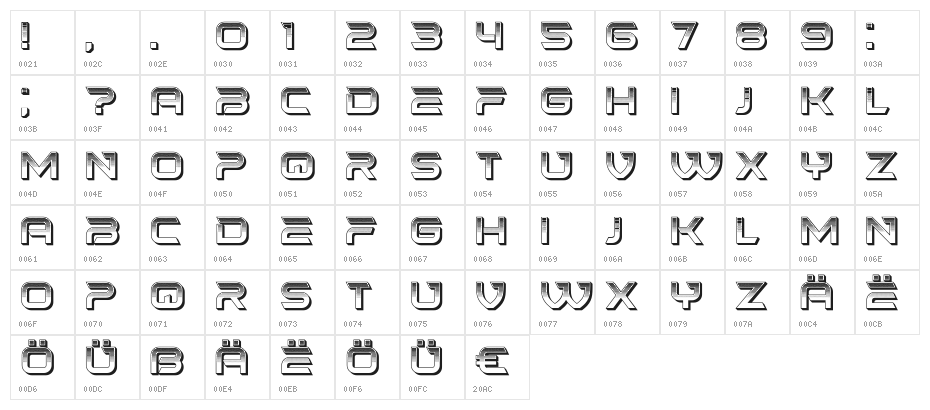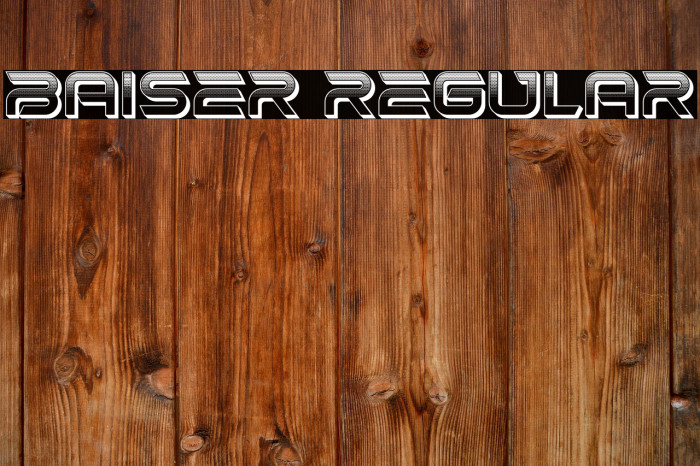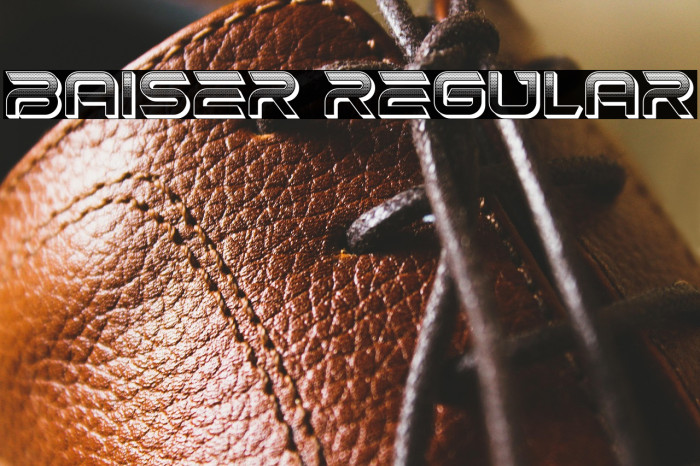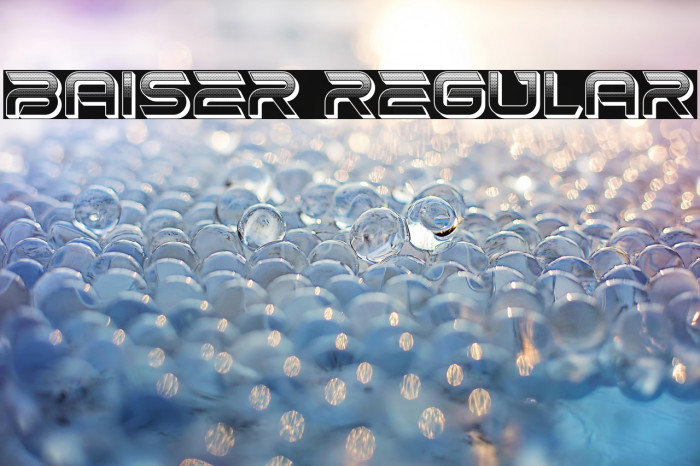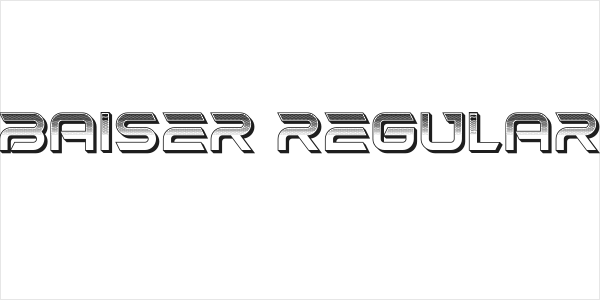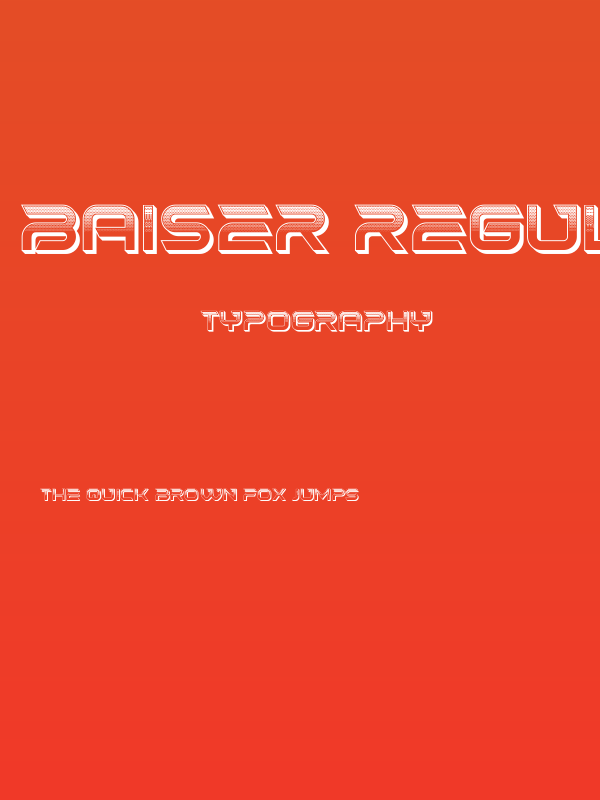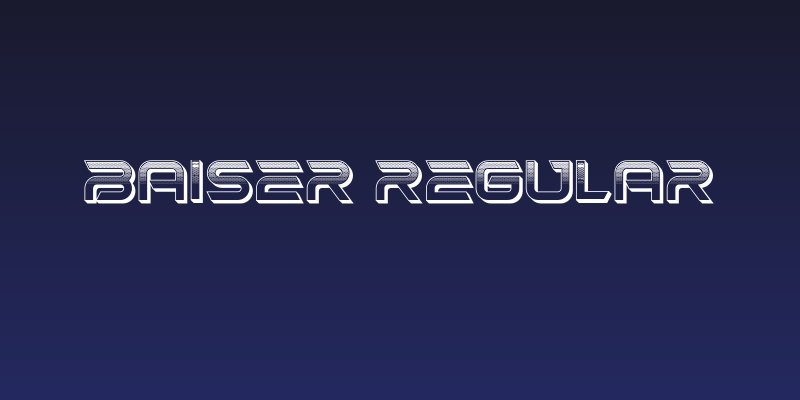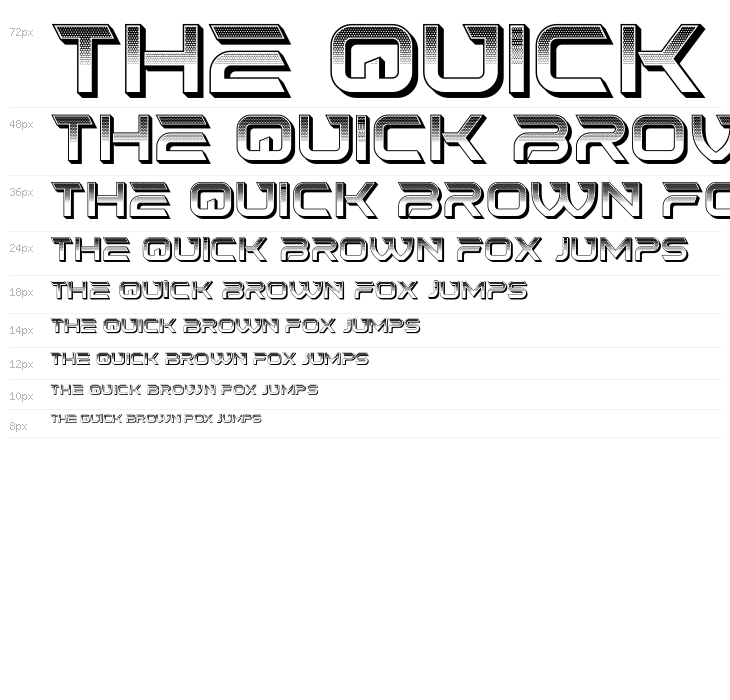
Baiser Regular Font
| Progetti proposti | Ideal for sci-fi themed projects, video game titles, posters, and branding that requires a modern and edgy look. |